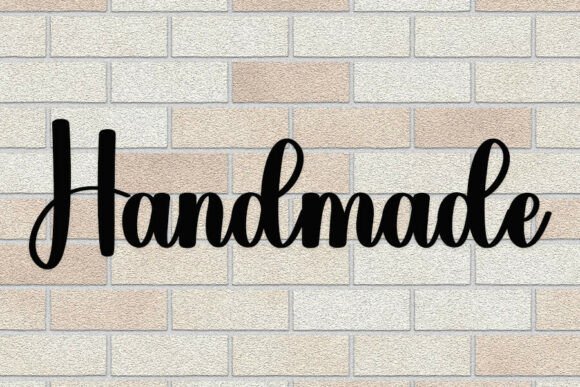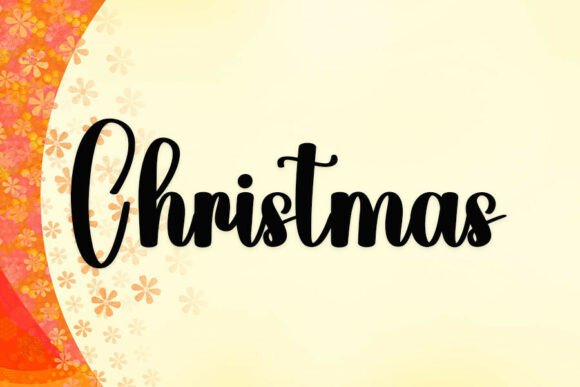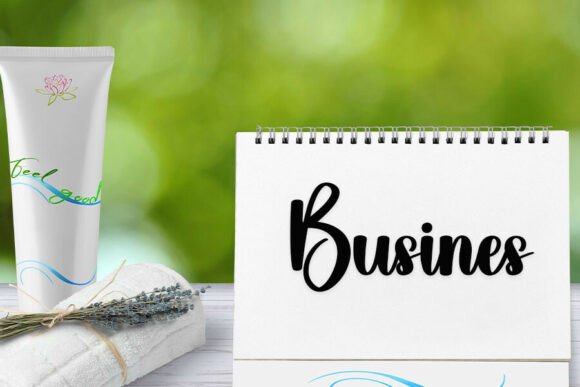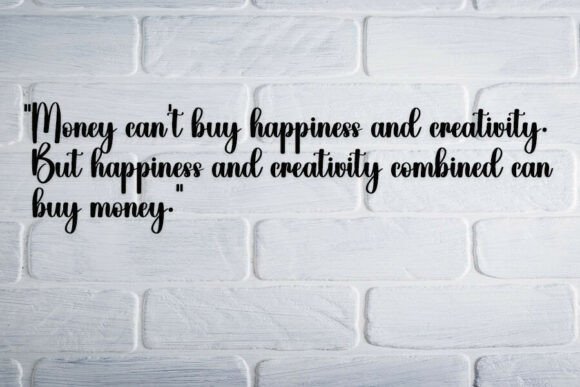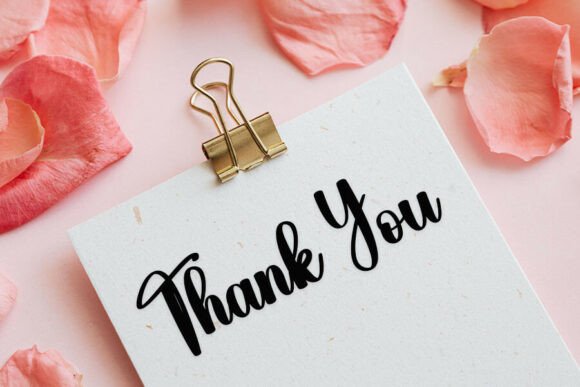
Introducing Delightful Font: The Sweet and Elegant Choice for Your Designs
Are you looking for a font that can add a touch of romance and joy to your designs? Look no further than Delightful Font, a sweet and cursive handwritten font that is perfect for a variety of design projects. With its gentle and elegant strokes, Delightful Font is sure to make your designs stand out and leave a lasting impression.
What Makes Delightful Font Special?
Delightful Font is a unique and beautiful font that is designed to add a touch of whimsy and romance to your designs. Its cursive and handwritten style gives it a personal and intimate feel, making it perfect for designs that require a human touch. Whether you’re working on a branding project, a wedding invitation, or a greeting card, Delightful Font is sure to bring a smile to your audience’s face.
Delightful Font is a versatile font that can be used for a wide range of design projects. Its elegant and cursive style makes it perfect for:
- Branding: Use Delightful Font to create a unique and memorable brand identity that stands out from the crowd.
- Wedding Things: Add a touch of romance and whimsy to your wedding invitations, programs, and decorations with Delightful Font.
- Greeting Cards: Use Delightful Font to create beautiful and heartfelt greeting cards for special occasions.
- Fashion: Delightful Font is perfect for fashion designs, such as lookbooks, catalogs, and advertisements.
- Marketing Promotion: Use Delightful Font to create eye-catching and effective marketing materials, such as brochures, flyers, and posters.
Why Choose Delightful Font?
There are many reasons why Delightful Font is the perfect choice for your design projects. Here are just a few:
- Elegant and Cursive: Delightful Font has a beautiful, cursive style that adds a touch of elegance and sophistication to your designs.
- Handwritten: The handwritten style of Delightful Font gives it a personal and intimate feel that is perfect for designs that require a human touch.
- Versatile: Delightful Font can be used for a wide range of design projects, from branding and wedding designs to greeting cards and marketing materials.
- Easy to Read: Despite its elegant and cursive style, Delightful Font is easy to read and understand, making it perfect for designs that require a clear and concise message.
Tips for Using Delightful Font
Here are a few tips for using Delightful Font in your designs:
- Pair with Other Fonts: Delightful Font pairs well with other fonts, such as sans-serif fonts, to create a beautiful and contrasting design.
- Use for Headings: Delightful Font is perfect for headings and titles, where its elegant and cursive style can really shine.
- Add a Personal Touch: Use Delightful Font to add a personal touch to your designs, such as in a handwritten note or a quote.
Delightful Font is a beautiful and elegant font that is perfect for a wide range of design projects. Its cursive and handwritten style adds a touch of romance and whimsy to your designs, making it perfect for branding, wedding designs, greeting cards, and more. With its versatility, elegance, and ease of use, Delightful Font is sure to become a favorite in your design toolkit.